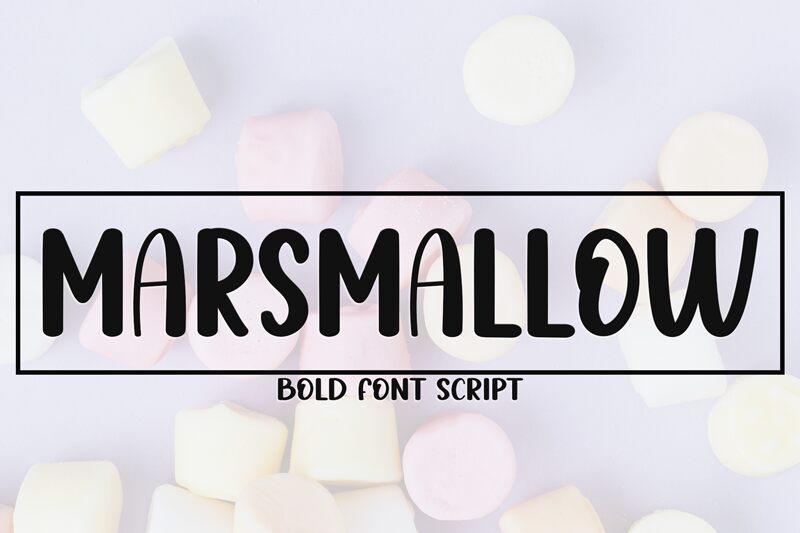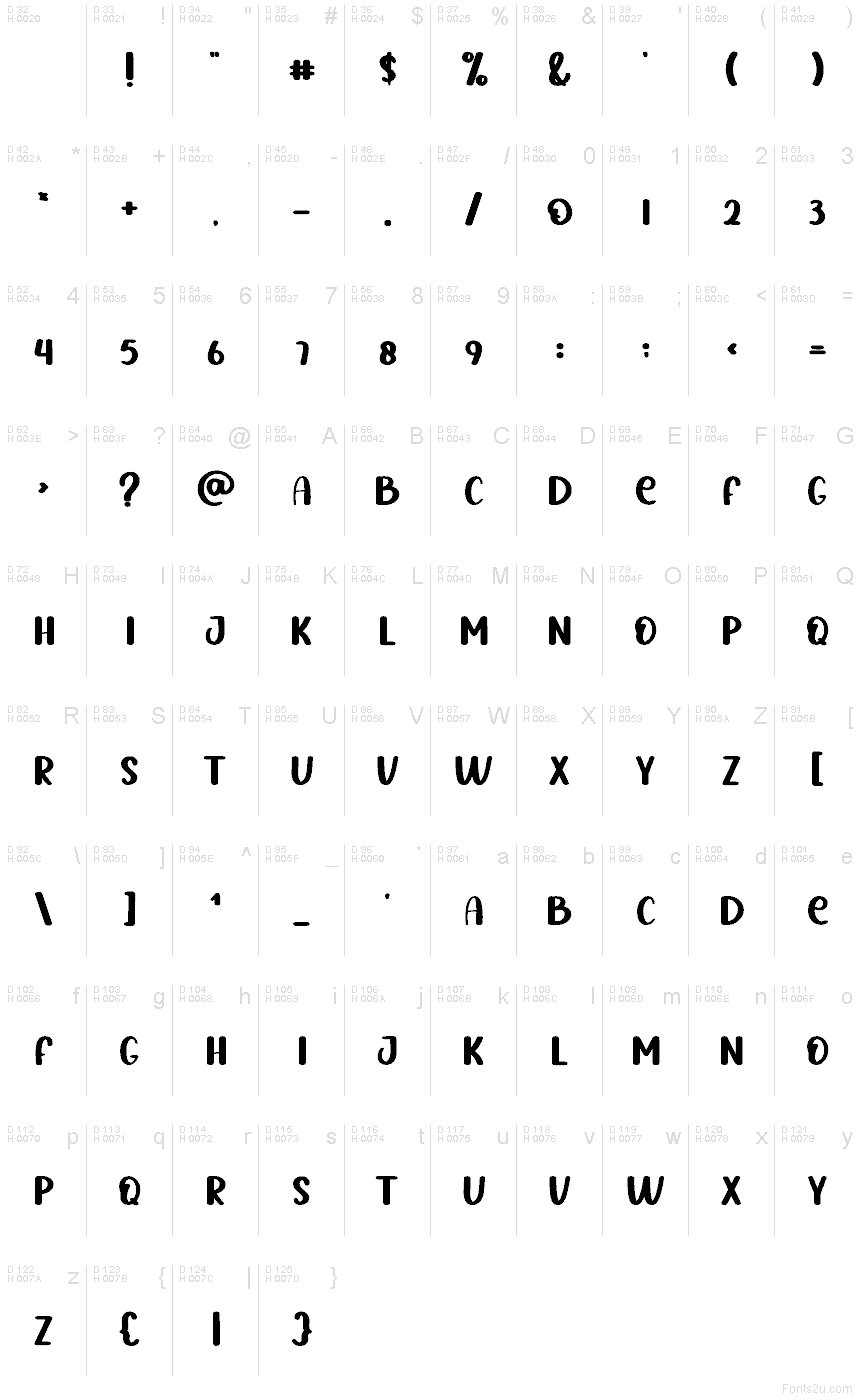
Marsmallow
Marsmallow font by Creatype Designer exudes an energetic and whimsical charm that marries contemporary flair with a vintage influence. Bold yet playful, it captures attention with its distinctive, vibrant style and casual charm.
Use this delightful free display font in book covers, headlines, posters, comics, graphic novels, games UI’s, apps UI’s, branding projects such as logos and packaging designs.